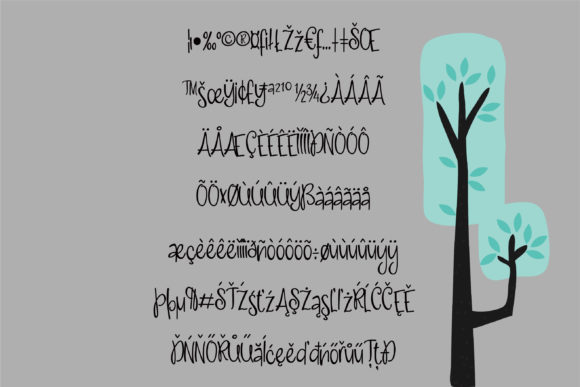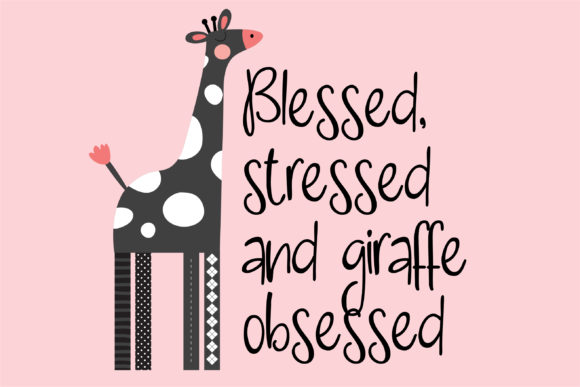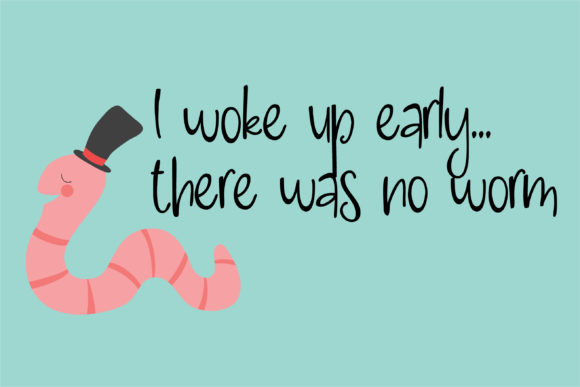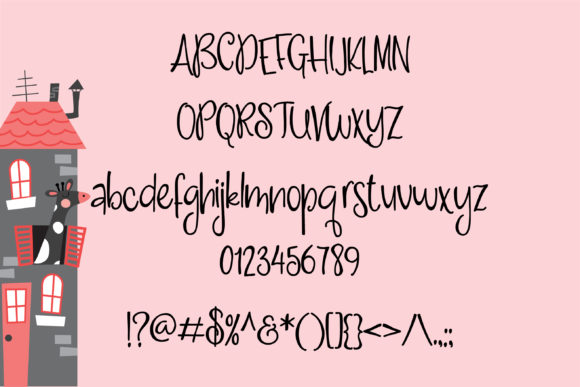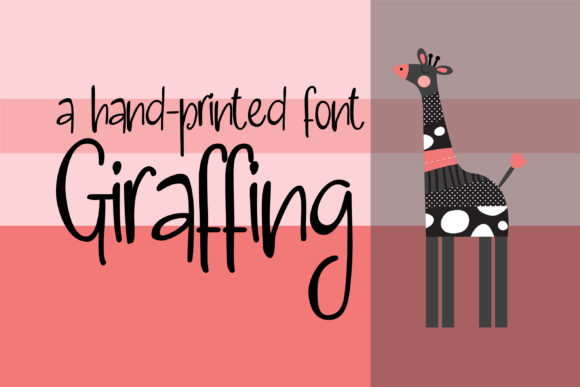
Giraffing Font: A Joyful Handwritten Font for Designers and Crafters
This hand-written font has a joyful quality to it, making it perfect for designers and crafters looking to add a playful touch to their projects. Introducing Giraffing Font, a unique and charming typeface that’s sure to delight.
What is Giraffing Font?
Giraffing Font is a handwritten font that’s been carefully crafted to bring a sense of joy and whimsy to your designs. With its irregular lines and playful curves, this font is perfect for creating eye-catching titles, headings, and text that needs to stand out.
Key Features of Giraffing Font
- Handwritten style: Giraffing Font has a distinctly handwritten feel, giving it a personal and approachable quality.
- Joyful quality: The font’s irregular lines and playful curves give it a joyful and uplifting feel.
- Unique character set: Giraffing Font includes a range of unique characters, ensuring that your designs stand out from the crowd.
- Easy to read: Despite its playful nature, Giraffing Font is surprisingly easy to read, making it perfect for use in a variety of design projects.
Use Cases for Giraffing Font
Giraffing Font is a versatile typeface that can be used in a wide range of design projects, including:
- Branding and packaging: Add a playful touch to your brand’s packaging and marketing materials.
- Invitations and greeting cards: Create eye-catching invitations and greeting cards that are sure to delight.
- Signage and displays: Use Giraffing Font to create eye-catching signage and displays that grab attention.
- Digital design: Add a playful touch to your website, social media graphics, and other digital projects.
Tips for Using Giraffing Font
To get the most out of Giraffing Font, try the following tips:
- Use it sparingly: Giraffing Font is a bold and playful font, so use it sparingly to avoid overwhelming your design.
- Pair it with a neutral font: Pair Giraffing Font with a neutral font to create visual interest and balance.
- Experiment with colors: Giraffing Font looks great in a range of colors, so don’t be afraid to experiment and find the perfect hue for your design.
Why Designers and Crafters Love Giraffing Font
Giraffing Font has quickly become a favorite among designers and crafters, and it’s easy to see why:
- Unique and playful: Giraffing Font adds a unique and playful touch to any design project.
- Easy to use: The font is surprisingly easy to read and use, making it perfect for designers and crafters of all levels.
- Versatile: Giraffing Font can be used in a wide range of design projects, from branding and packaging to digital design and more.
In conclusion, Giraffing Font is a joyful and playful handwritten font that’s perfect for designers and crafters looking to add a unique touch to their projects. With its irregular lines, playful curves, and easy-to-read design, Giraffing Font is sure to delight. Whether you’re working on a branding project, creating invitations, or designing digital graphics, Giraffing Font is a versatile typeface that’s sure to bring a smile to your face.